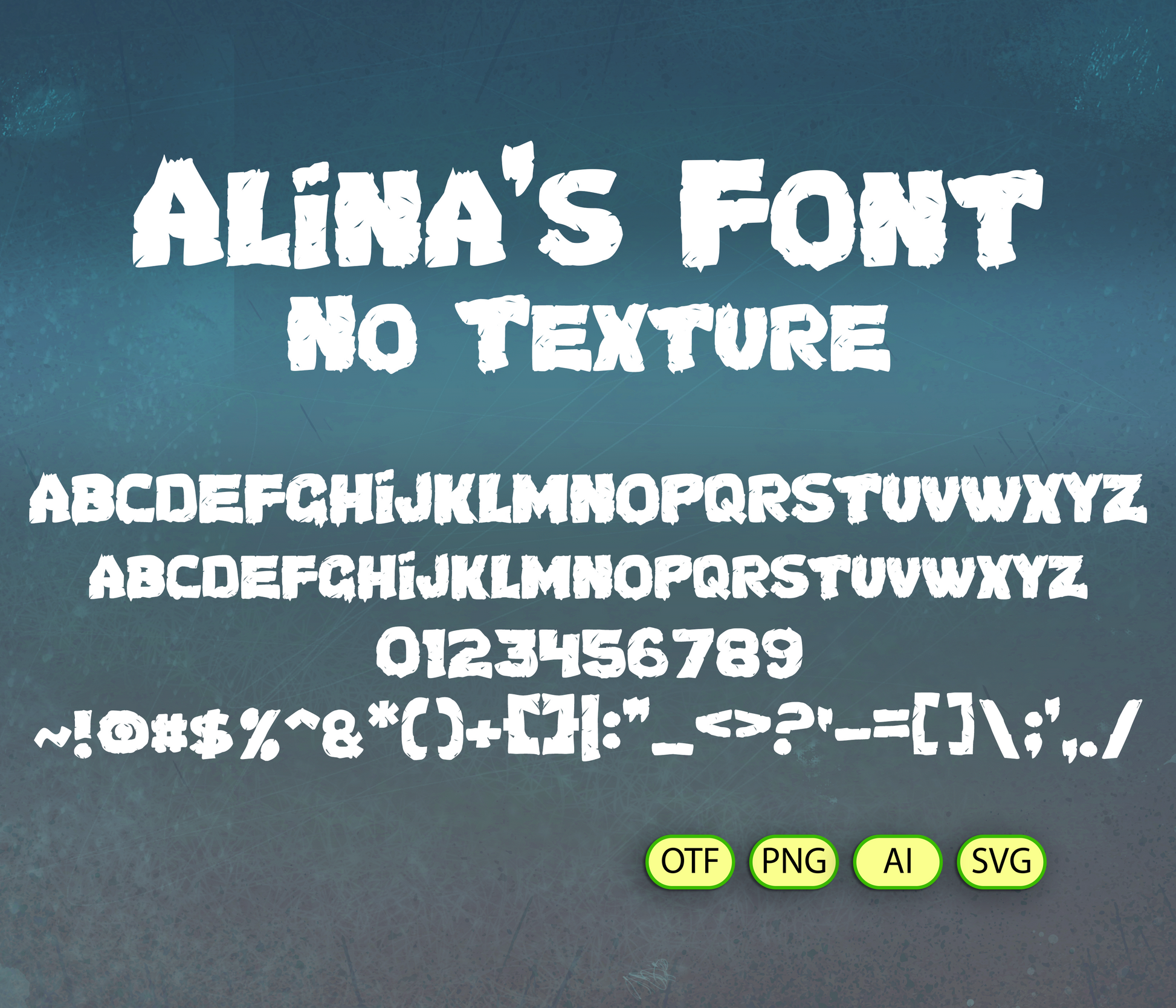
Shell Warriors Font
Step into the world of pizza-loving martial artists with our Shell Warriors font, capturing the essence of teenage fighter reptiles. Perfect for fans, comic creators, event organizers, and designers, this font brings the dynamic, action-packed spirit of these beloved green heroes to your projects. Create event invitations, themed merchandise, or digital content with the high-energy vibe of these underground champions.
Our Shell Warriors font features bold, energetic lines and playful characters reflecting the dynamic nature of these shell-backed fighters. Ideal for:
1. Event Promotions: Create striking posters and promotional materials for comic conventions, martial arts shows, or reptile-themed gatherings that capture the essence of ninja action.
2. Merchandise Design: Perfect for t-shirts, skateboards, and youth apparel that needs that extra touch of underground warrior spirit.
3. Digital Content Creation: Enhance your websites, social media posts, and digital art with the radical energy of these teenage heroes.
4. Themed Projects: Ideal for comic-inspired designs, children's events, or any project that needs to convey the essence of martial arts adventure.
5. Custom Party Materials: Perfect for birthday parties, fan gatherings, or any project requiring that blend of action and humor in a half-shell.
Many seek an online font generator to mimic the look of the Shell Warriors Font. Steer clear! No generator can match the quality of our font, which comes in a clean version perfect for cutting machines.
Our font pays tribute to the legendary teen fighters, empowering your designs with its energetic and playful spirit. Whether crafting promotional materials, designing merchandise, or adding a dynamic touch to personal projects, this font communicates the bold essence of these heroes. Ready to inject warrior action into your creations? This font is your key to exciting, impactful design.